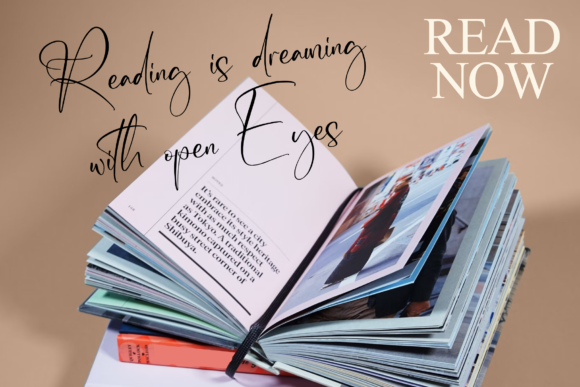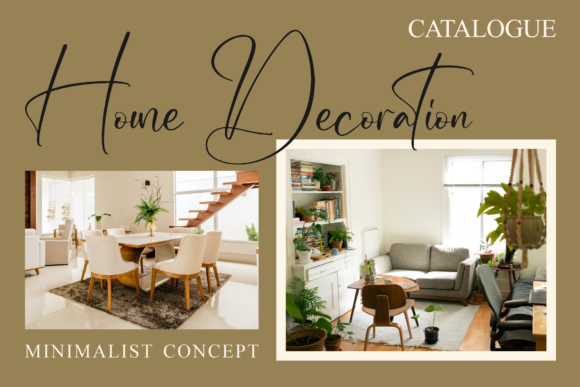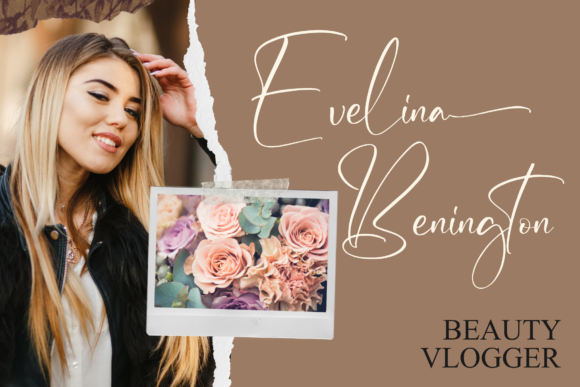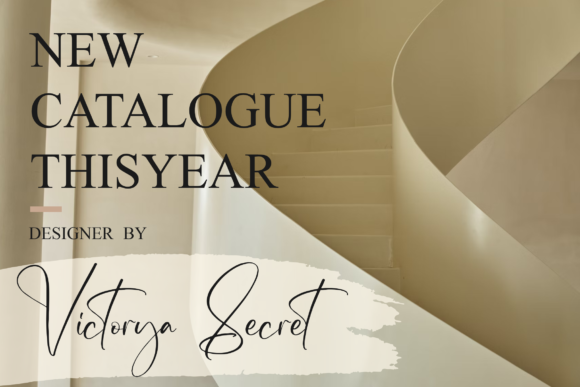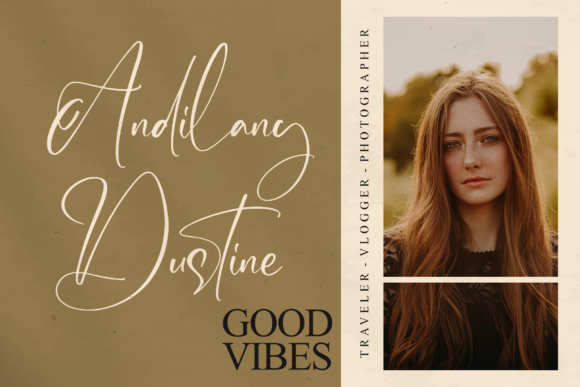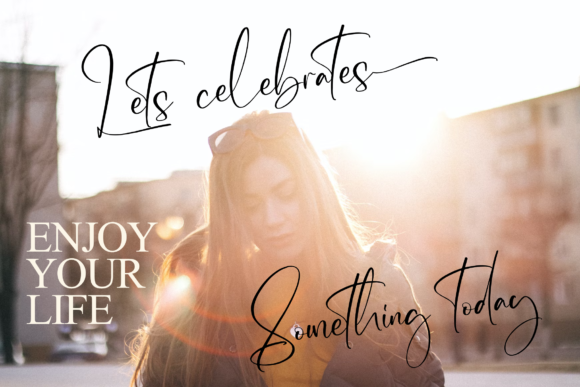
Introduction to Honelesty Font
Have you ever found yourself staring at a blank page, trying to come up with the perfect design concept for your next project? The blank page stares back, taunting you with its emptiness. But what if you had the perfect tool to bring your creative vision to life? Enter the Honelesty Font – Beautiful Script Font, a stunning design resource that’s sure to elevate your creative project.
As designers, we’re always on the lookout for high-quality design resources that can help us stand out from the crowd. And that’s exactly what the Honelesty Font delivers – a beautiful, elegant script font that’s perfect for a wide range of creative projects. From logos and branding projects to homeware designs and product packaging, this font is a valuable addition to any designer’s toolkit.
Key Features of Honelesty Font
- Designed with a modern, clean aesthetic, making it perfect for use in logos, branding, and typography-based designs.
Honest Review: Honelesty Font
I recently had the chance to experiment with the Honelesty Font, and I must say it’s a great addition to any design arsenal. ✨ The high-quality typography is perfect for creating a unique visual identity for your brand or creative project.
- High-quality typography
- Easy to use
However, I did encounter some limitations with the Honelesty Font. ⚠️ For instance, the font library is limited, and it may not be suitable for large-scale commercial projects. Additionally, the font’s customization options are somewhat limited, which can be a drawback for designers who like to experiment with different styles.
Overall, I’m impressed with the Honelesty Font, and I think it’s a great choice for designers who are looking for a high-quality, free font for their creative projects. Just keep in mind its limitations, and you’ll be all set to create stunning designs with this font.
Tips for Getting the Most Out of Honelesty Font
Here are some tips for getting the most out of Honelesty Font: use it with a transparent background to create a clean and modern look, experiment with different font sizes and styles to add visual interest, and combine it with other design resources to create a high-quality visual.
Honelesty Font is perfect for creative projects that require a clean and modern look, such as presentations, documents, and social media graphics. It’s also great for designers who want to add a touch of sophistication to their designs without using a lot of visual elements.